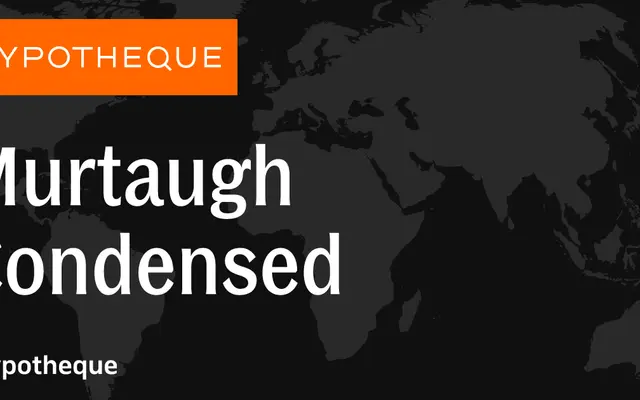
Murtaugh Condensed
A condensed grotesque sans from Typotheque offered in six weights with matching italics, forming part of the broader Murtaugh system alongside a standard-width counterpart.
Murtaugh Condensed sits within a two-subfamily system alongside Murtaugh, sharing six weights from Light to Black with corresponding italics across both widths. The family suits editorial, display and text work where column width is at a premium. Individual styles are sold under city names, a naming convention Typotheque uses across several of its families.
A condensed sans-serif with multiple weights and italics, fitting the grotesque tradition with a tight width designed for space-efficient typesetting.